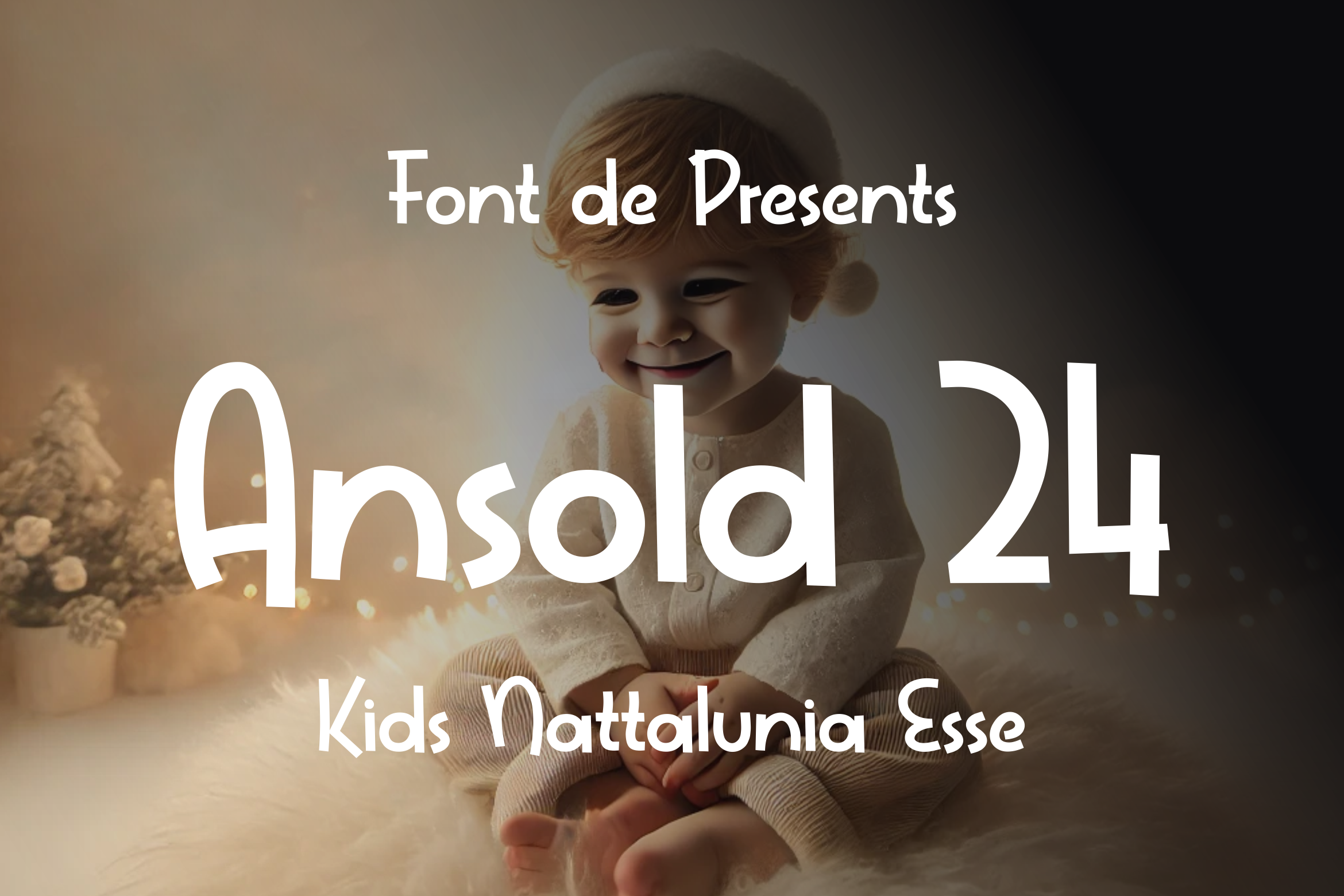
Anshold 24 Font
Ansold 24 is a playful, heartwarming font that brings the joy of Christmas to life. With soft, friendly curves, it adds a cheerful, inviting feel to holiday cards, family event posters, and festive invitations. Perfect for family and children-themed designs, Ansold 24 brings warmth and charm to your holiday projects. Available in .OTF and .TTF formats.